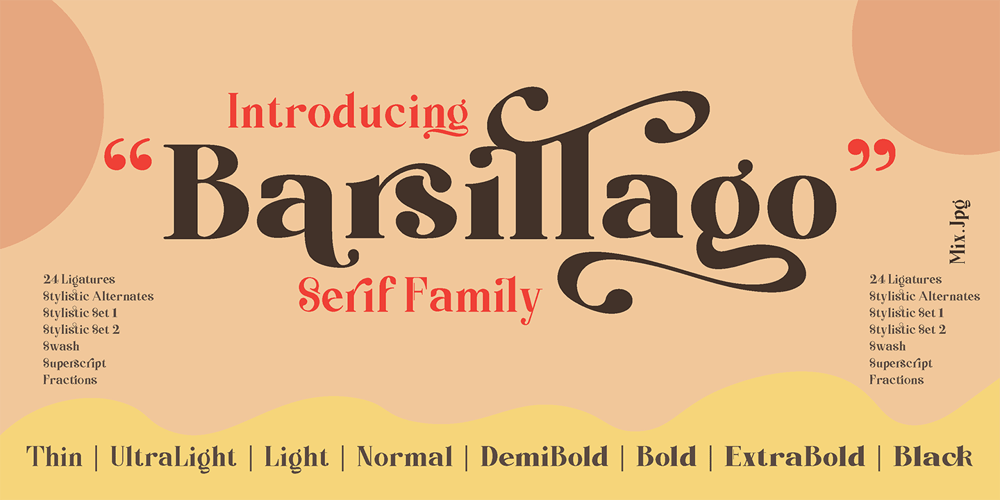
Barsillago Font Family was designed by Mix Jpg and published by MIX.Jpg. Barsillago contains 8 styles and family package options. Barsillago serif font family is a modern and bold serif with a bunch of ligatures and alternates that will make your presentation or logo even more stunning and stand out! Augillion also support Multi LanguageFeatures Uppercase & Lowercase, Number & Symbol, Multi language, Ligatures, Alternates for each characters.We highly recommend using a program that supports OpenType features and Glyphs panels like many of Adobe apps and Corel Draw, so you can see and access all Glyph variations.HOW TO ACCESS ALTERNATE CHARACTERSOpen glyphs panel:-In Adobe Photoshop go to Window – glyphs-In Adobe Illustrator go to Type – glyphsThanks & Happy designing